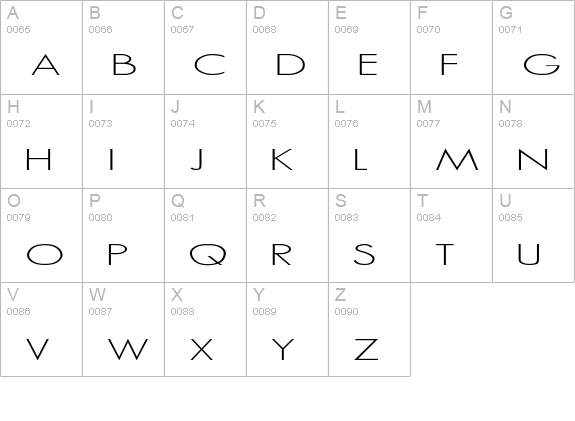
PCGoodSerif Font Details
PCGoodSerif is a visually stunning font that combines elegance and versatility. With its clean lines, balanced proportions, and timeless appeal, this font is perfect for any project that requires a touch of sophistication. Whether you're designing a logo, creating a professional presentation, or working on a print advertisement, PCGoodSerif will elevate your work to new heights. What makes PCGoodSerif even more appealing is that it is available for free. Yes, you read that right! This incredible font can be downloaded at no cost from FontsMarket.com. This means that you can enhance your designs without breaking the bank. It's a win-win situation. PCGoodSerif offers a wide range of weights and styles, allowing you to find the perfect fit for your project. Whether you prefer a bold and impactful look or a more subtle and refined aesthetic, this font has got you covered. Its versatility ensures that you can use it across various mediums, including digital and print. Furthermore, PCGoodSerif boasts excellent legibility, making it ideal for body text as well as headlines. Its well-defined letterforms and generous spacing ensure that your message is conveyed with clarity and professionalism. This font is designed with the reader in mind, ensuring a seamless reading experience. Another noteworthy feature of PCGoodSerif is its extensive character set. It covers a wide range of languages, allowing you to communicate your message effectively to a global audience. Whether you're targeting English-speaking markets or reaching out to international clients, this font has all the characters you need. In summary, PCGoodSerif is a beautiful, versatile, and free font that will enhance any design project. Its timeless appeal, wide range of weights and styles, excellent legibility, and extensive character set make it a must-have for any designer's toolkit. Don't miss out on the opportunity to elevate your work with this incredible font. Download PCGoodSerif for free at FontsMarket.com and unlock a world of design possibilities.